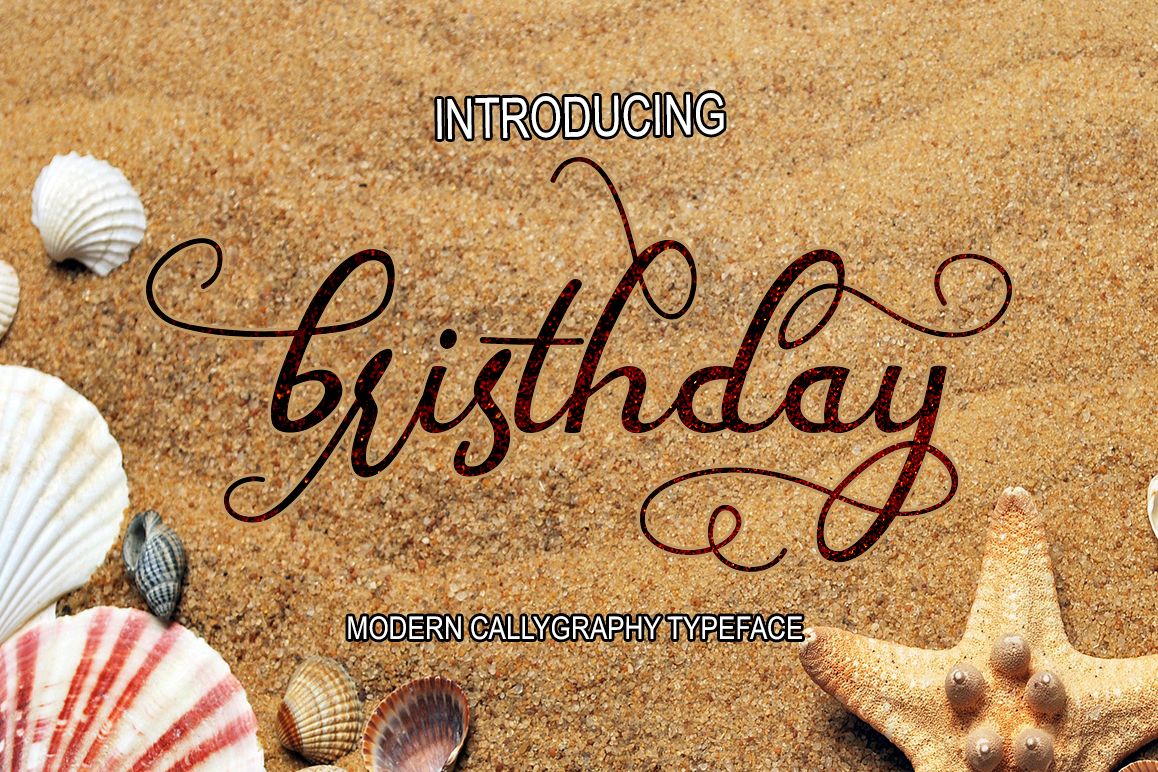
bristhday
I Want To Introduce New Fonts
bristhday Script
bristhday Script New fresh & modern style with handmade calligraphy, decorative characters and dancing lineage! So wonderful are invitations like greeting cards, branding material, business cards, quotes, posters, and more !!